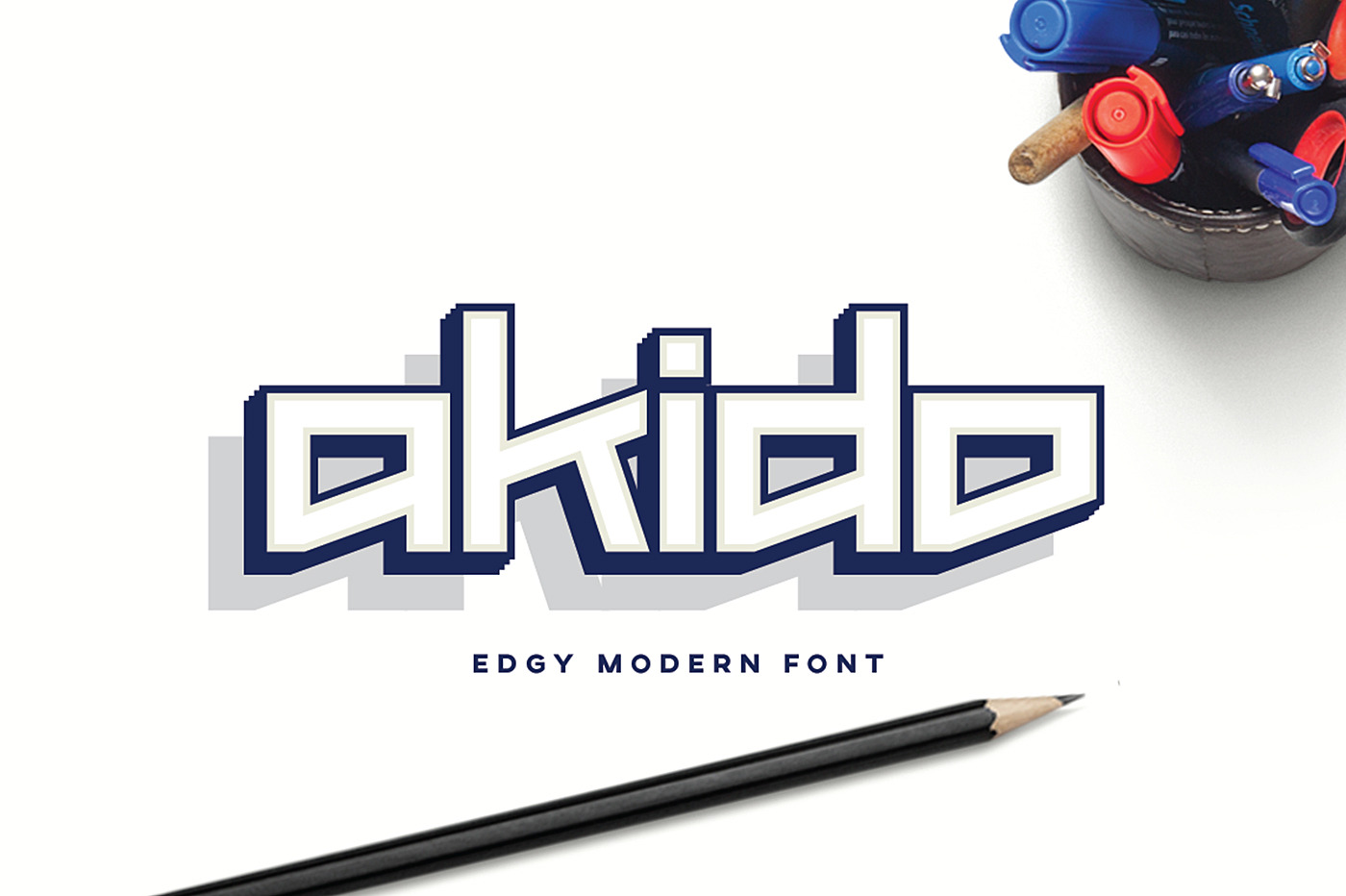
Akido Edgy Modern Logo Font Logotype
Akido is a modern, minimal and edgy font family. It can be used on futuristic, modern, minimal and architectural projects and other sci-fi ones. It was carefully crafted for your need.
Use this font to create logos, prints or simply use it in your next design project.